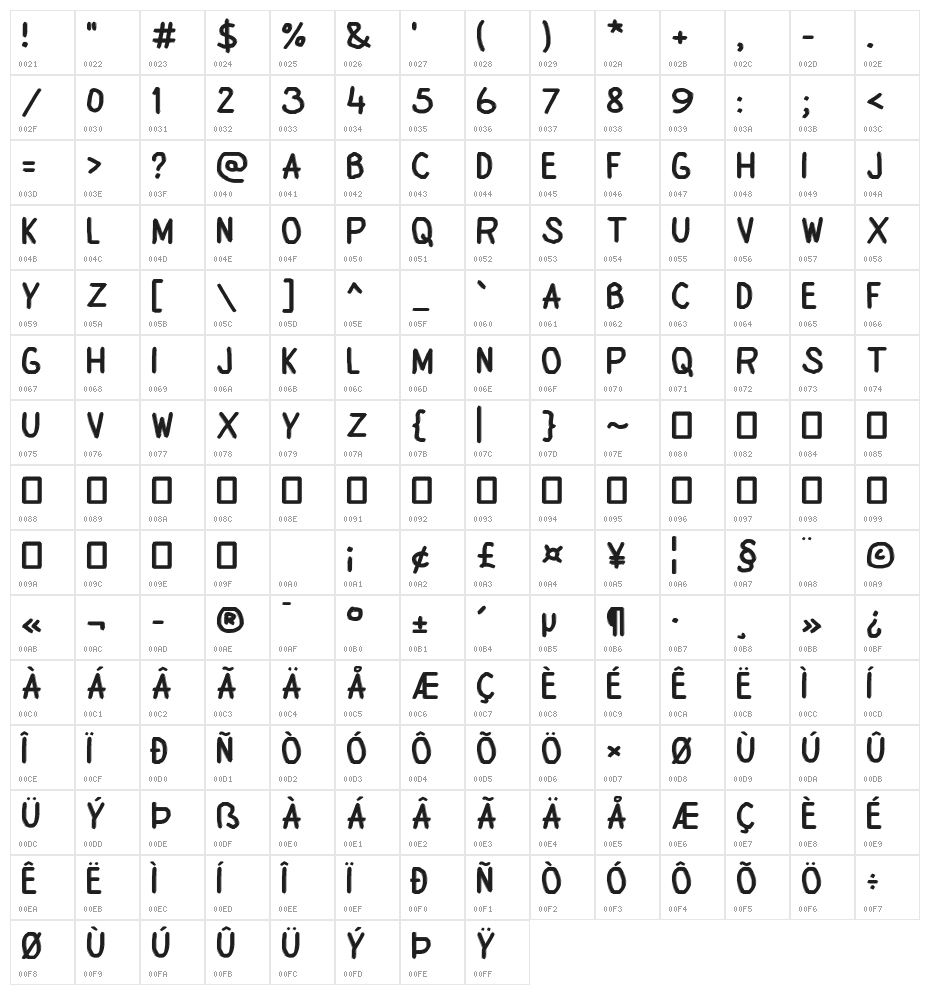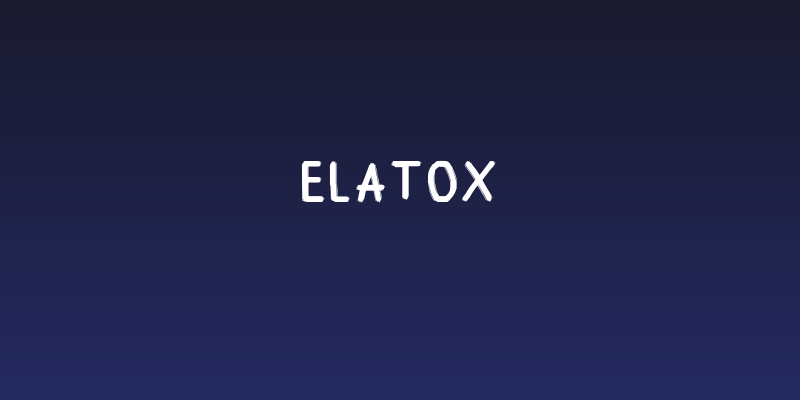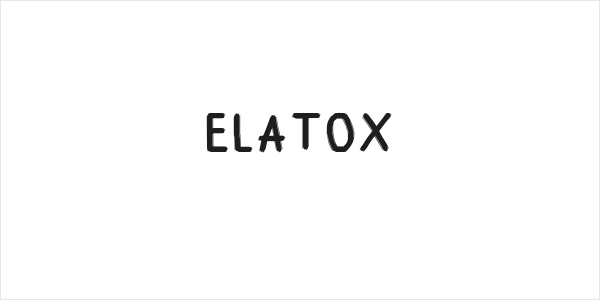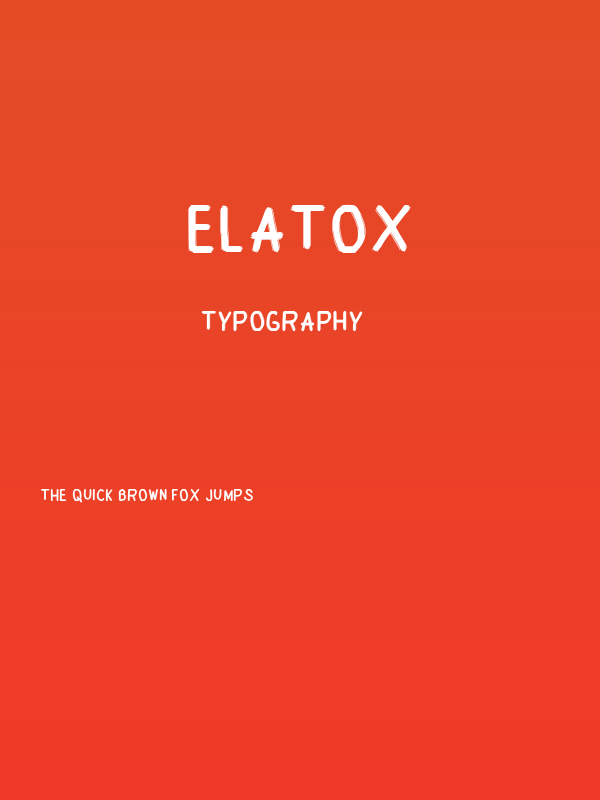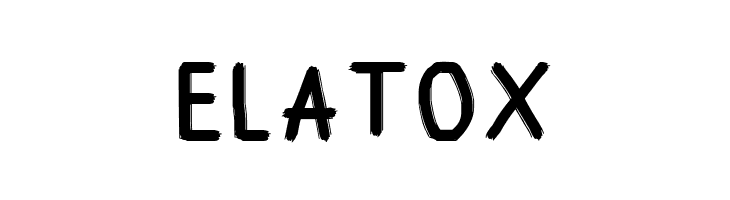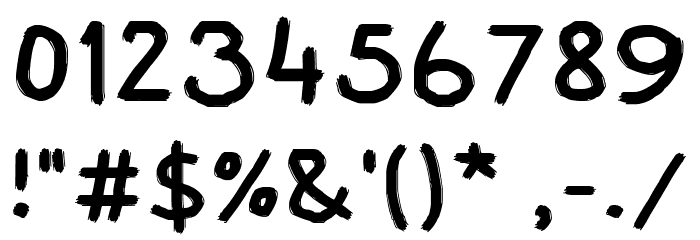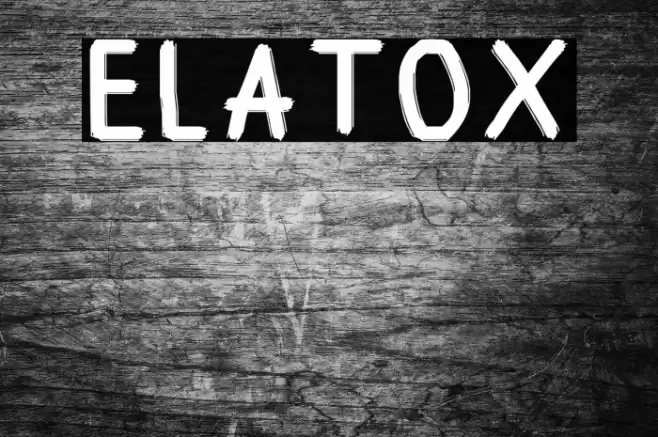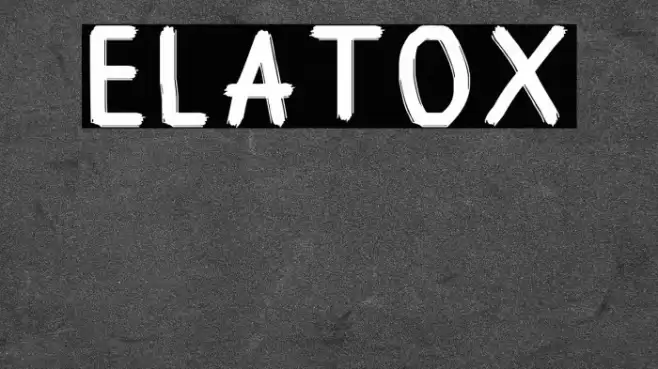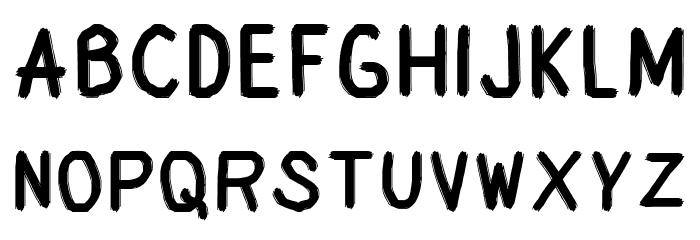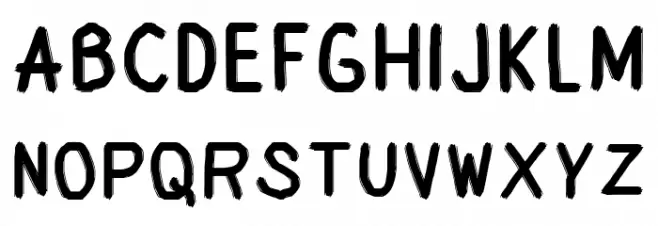
Elatox Font
Elatox Description
This font features a bold, hand-drawn style with a playful and artistic flair. The characters are slightly irregular, giving it a casual and informal appearance. The strokes are thick and consistent, creating a strong visual impact. The uppercase and lowercase letters maintain a cohesive look, while the numerals and special characters complement the overall design. This font's unique style makes it stand out, perfect for creative projects that require a touch of personality.
| Overall Style | Decorative |
| Use Case | Headlines, Logos, Creative projects |
| Proposed Projects | Ideal for posters, greeting cards, children's books, and creative branding projects. |